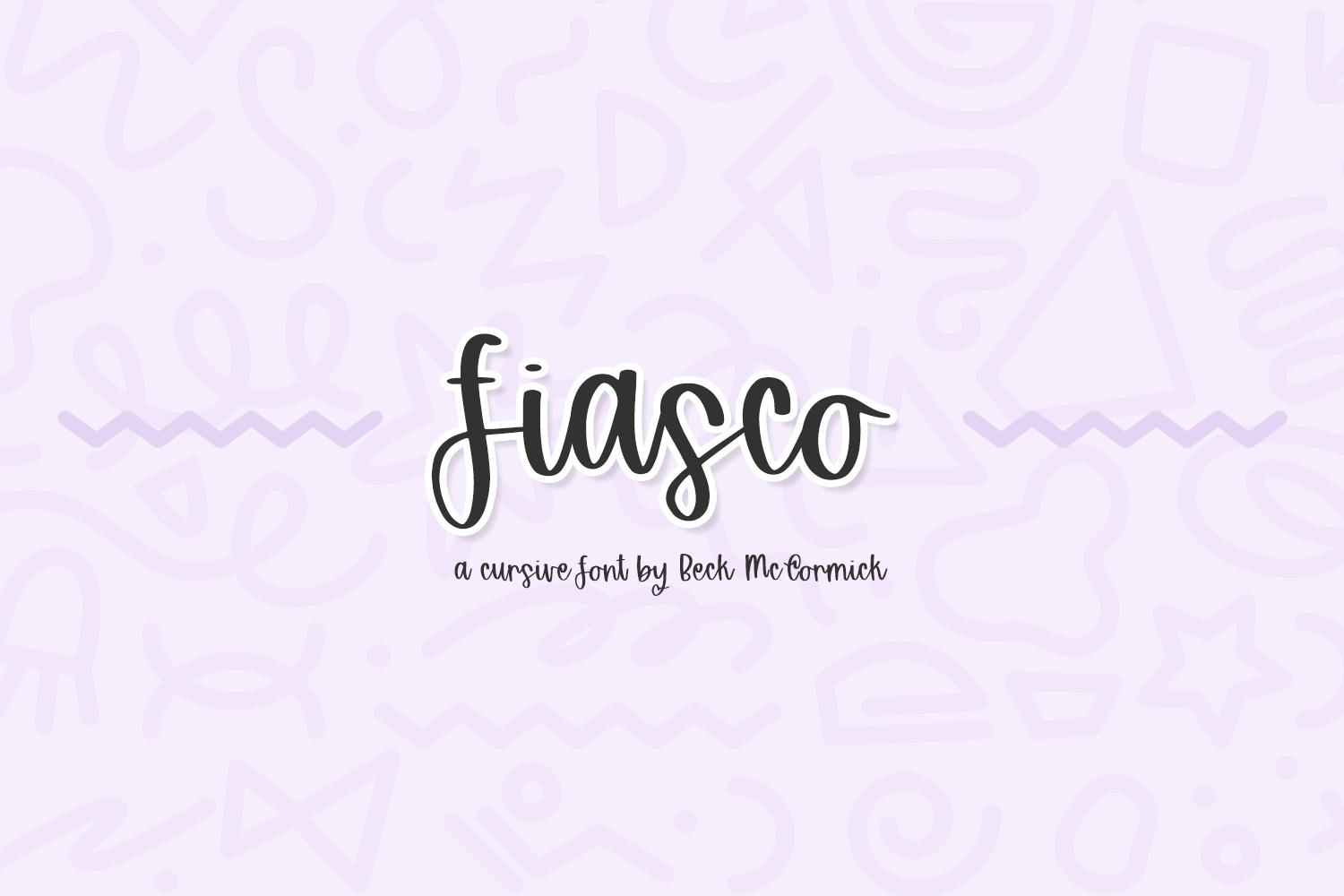
Fiasco Script
Introducing Fiasco Script, a bouncy modern calligraphy font. Fiasco is a clean cursive font with a feminine aesthetic, making it a perfect choice for designing feminine logos & branding, cute paper products like wedding invitation suites, or for displaying headlines on your website. Fiasco can also be used for other print design like magazines and flyers or printed marketing materials. This font can also be used for digital marketing materials and social media items! Fiasco Script’s clean edge makes it a great candidate for craft projects on your Cricut or Silhouette machine; it cuts beautifully!
Fiasco Script includes:
- 2 ligatures — ox, tt